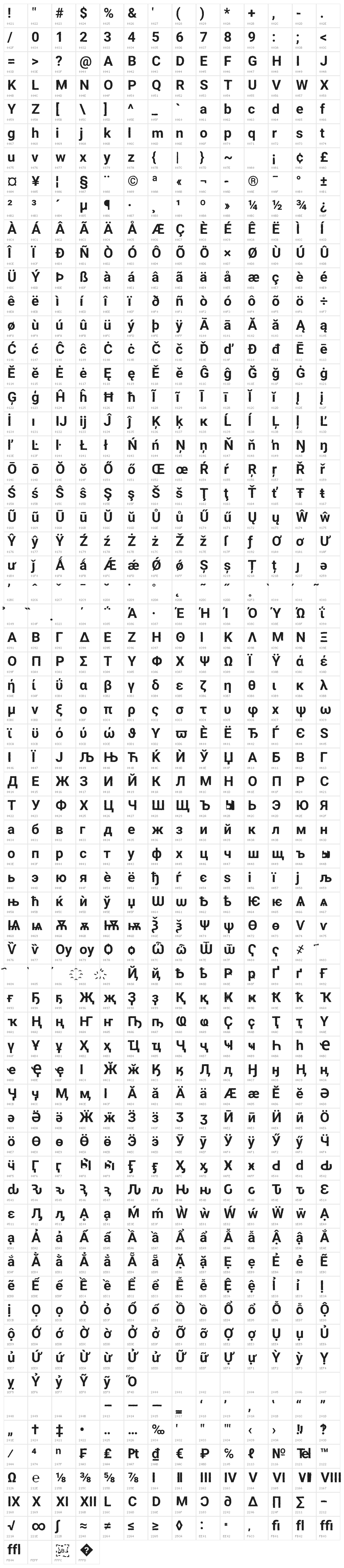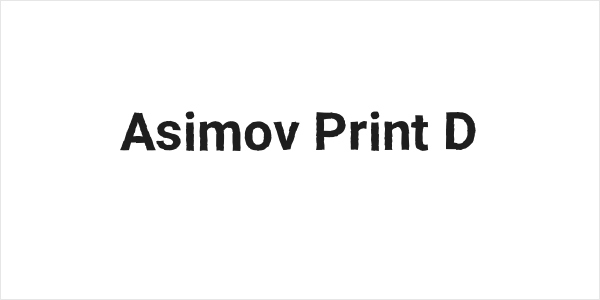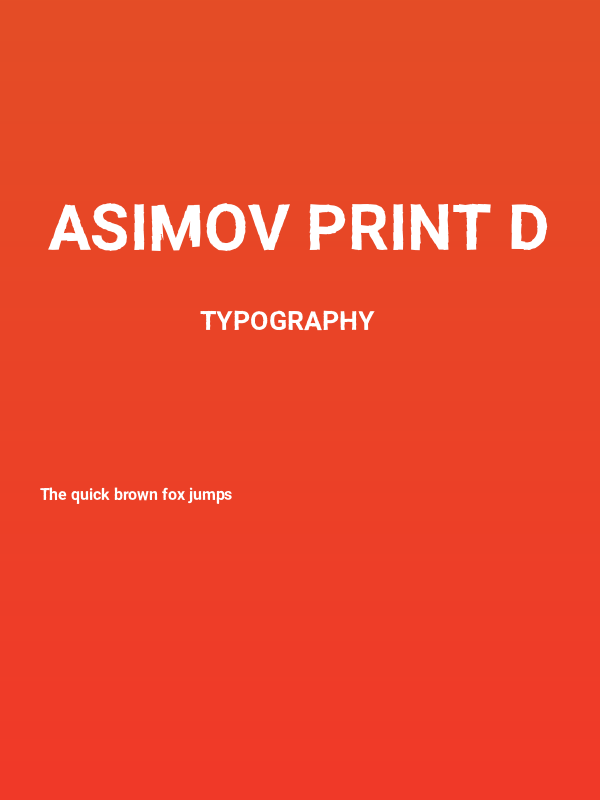
Asimov Print D Font
Asimov Print D Description
This font features a bold and robust design with a slightly distressed texture, giving it a vintage and industrial feel. The uppercase and lowercase letters are well-proportioned, with consistent stroke widths that add to its bold appearance. The numerals are clear and legible, maintaining the same boldness as the alphabet characters. Special characters are included, matching the overall style and weight of the font. The slightly rough edges contribute to its unique character, making it suitable for projects that require a strong and impactful visual presence.
Overall StyleVintage
Proposed ProjectsIdeal for posters, headlines, branding, and any design requiring a bold, vintage aesthetic.